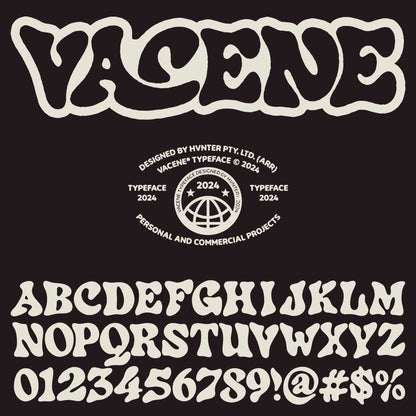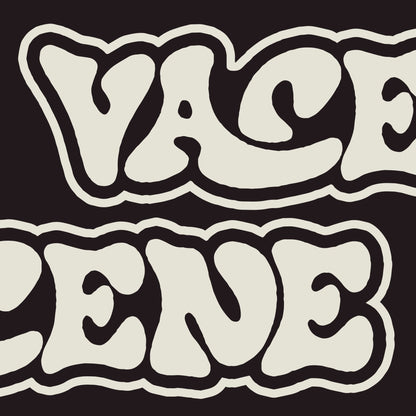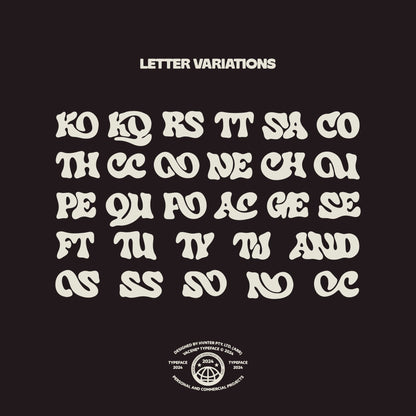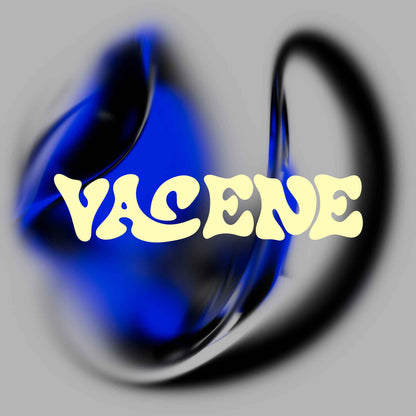
Vacene Typeface
Fluid, psychedelic, undeniably bold. Meet Vacene, an eccentric typeface designed by HVNTER, bursting with organic curves and surreal forms. Each glyph feels handcrafted, melting effortlessly between retro nostalgia and modern flair. This font is a statement of creative rebellion, ideal for those who dare to distort the norm.
Key Features:
- Unique, curvy letterforms inspired by psychedelic art and vintage aesthetics.
- Multiple stylistic alternates for ultimate design versatility.
- Perfectly suited for eye-catching logos, bold branding, apparel, and digital artwork.
- Crafted for creators who thrive on pushing boundaries and sparking visual intrigue.
- Complete set of uppercase letters with letter variations that show two combined letters as unique glyphs e.g. the AC in the font name.
- Alternates and ligatures to enhance your creative projects.
Vacene by HVNTER—crafted for visionaries who glitch reality and make waves.